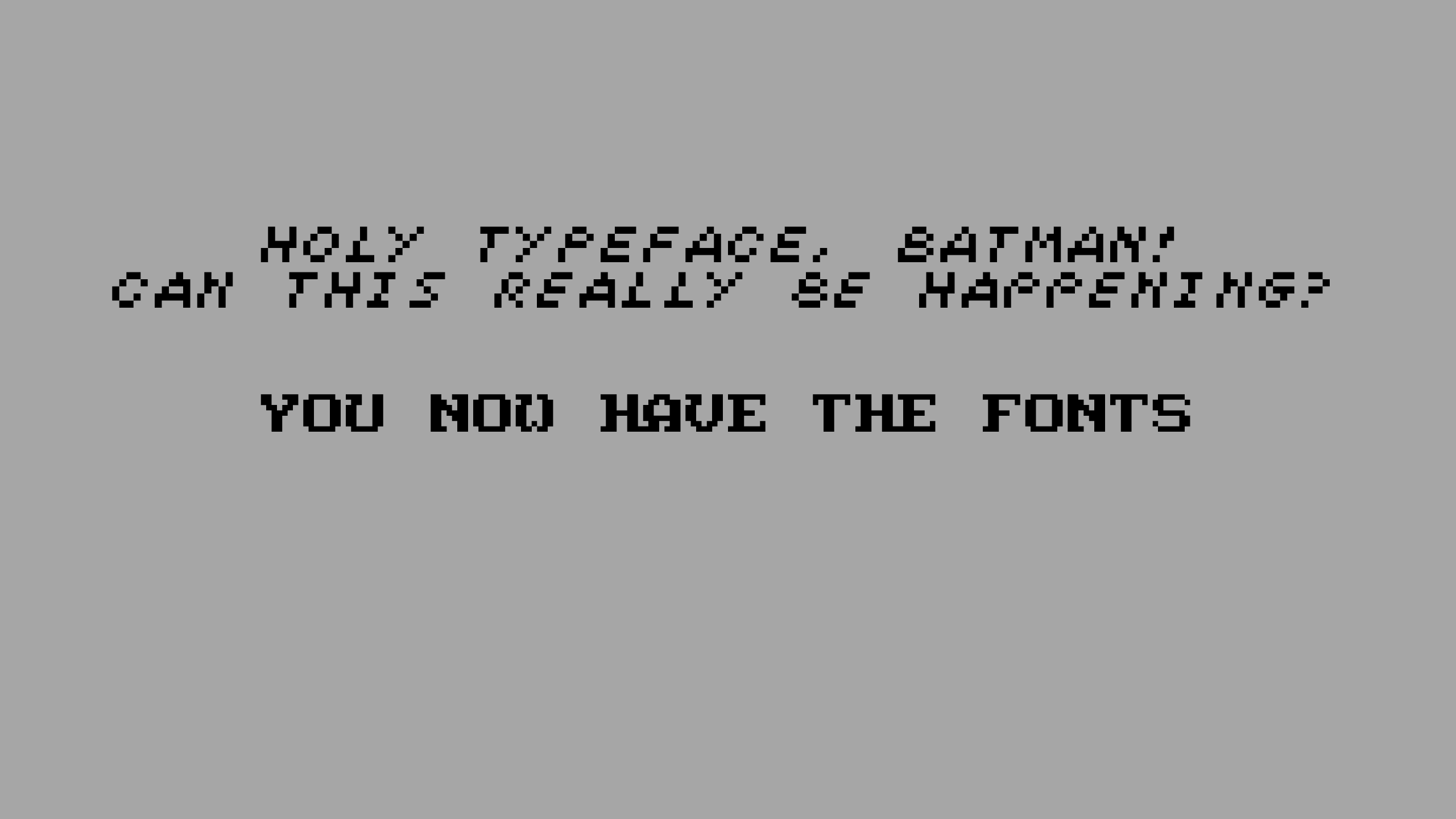
This game makes use of a pixel font that strongly resembles the lettering used in comic books -- one of the first video game adaptations of a comic to do so! Included in this font pack are the following:CapedCrusaderC64 - this is the version of the font most commonly seen, as it's used in the Commodore 64, Amiga, ZX Spectrum, Amstrad CPC, and Atari ST ports.
CapedCrusaderPC - this is a slightly altered version of the font from above, used only in the MS-DOS port.
CapedCrusaderMenu - this is a Celtic-looking font used only in the Commodore 64 version, usually to show when Batman gets a new item.